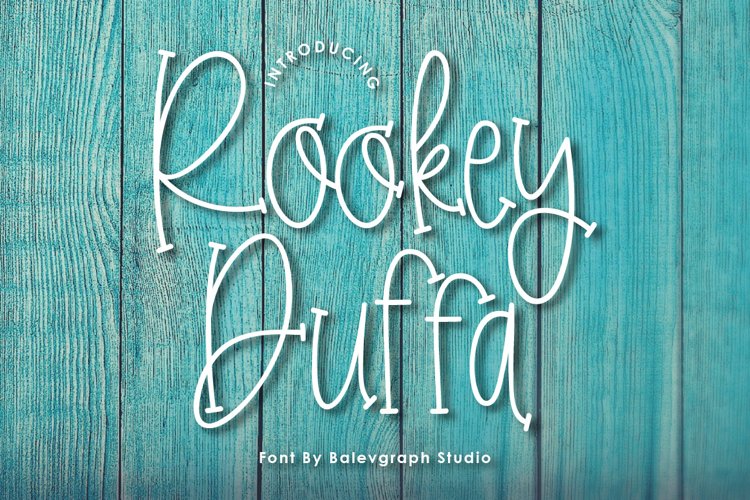
Rookey would perfect for photography, watermark, social media posts, advertisements, logos & branding, invitation, product designs, label, stationery, wedding designs, product packaging, special events or anything that need handwriting taste.
- Ligature